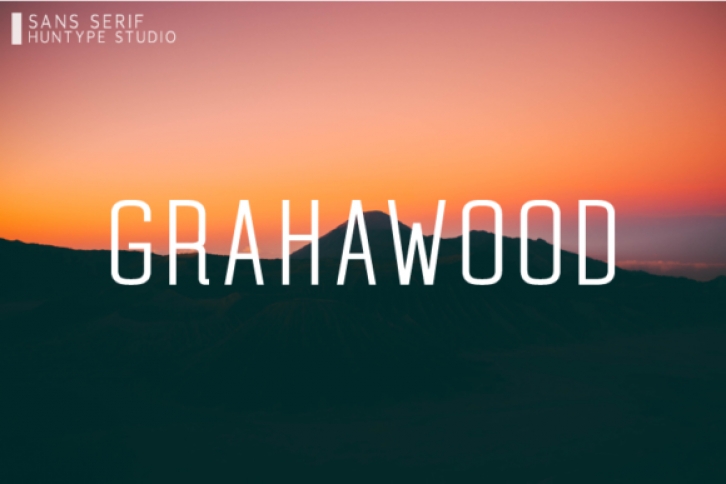
Grahawood is a modern and sophisticated sans serif font. It features all caps characters that will look particularly adept when used in logos, branding, packaging design, and much more. This masterfully designed font is a true must-have.